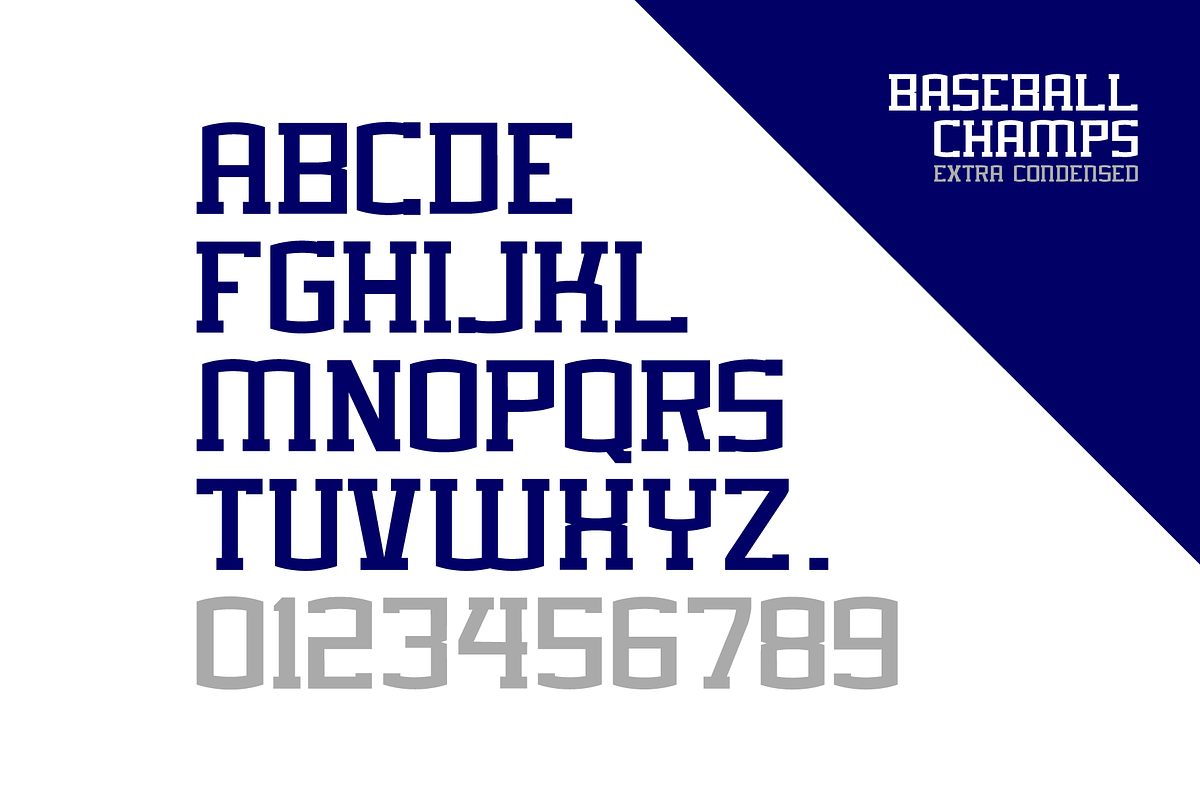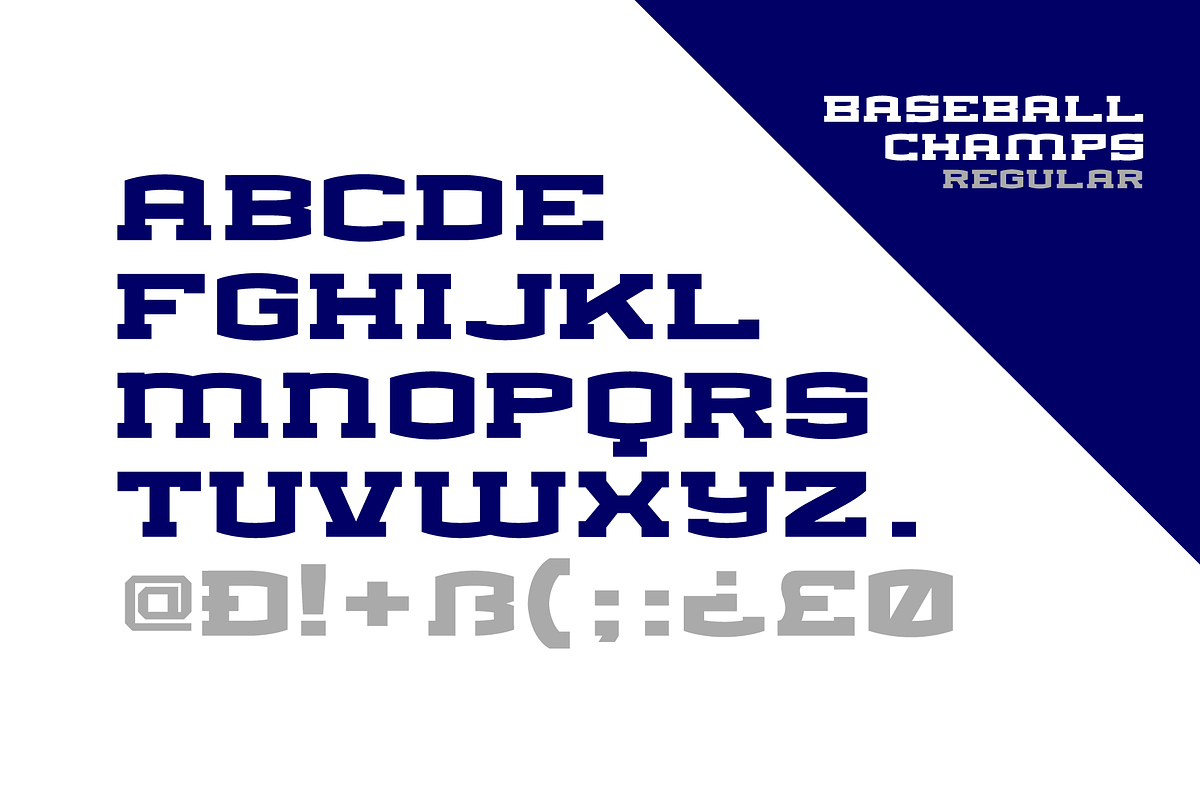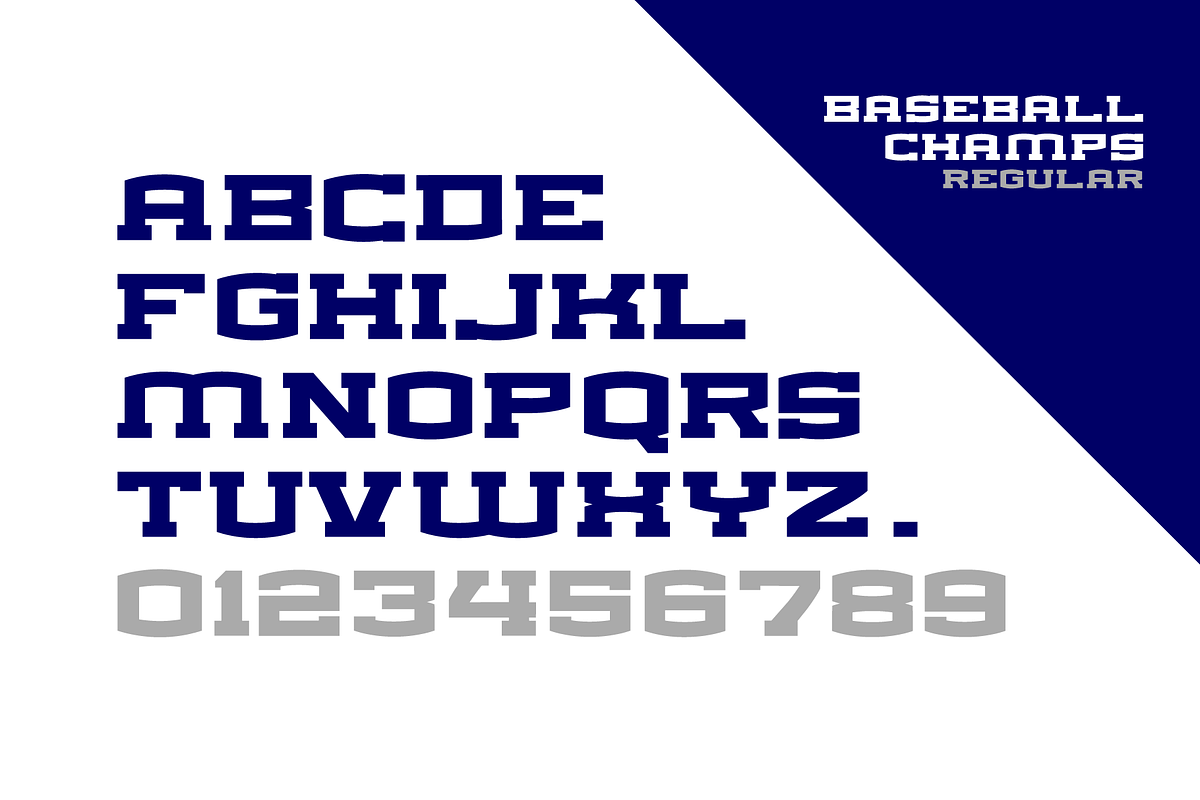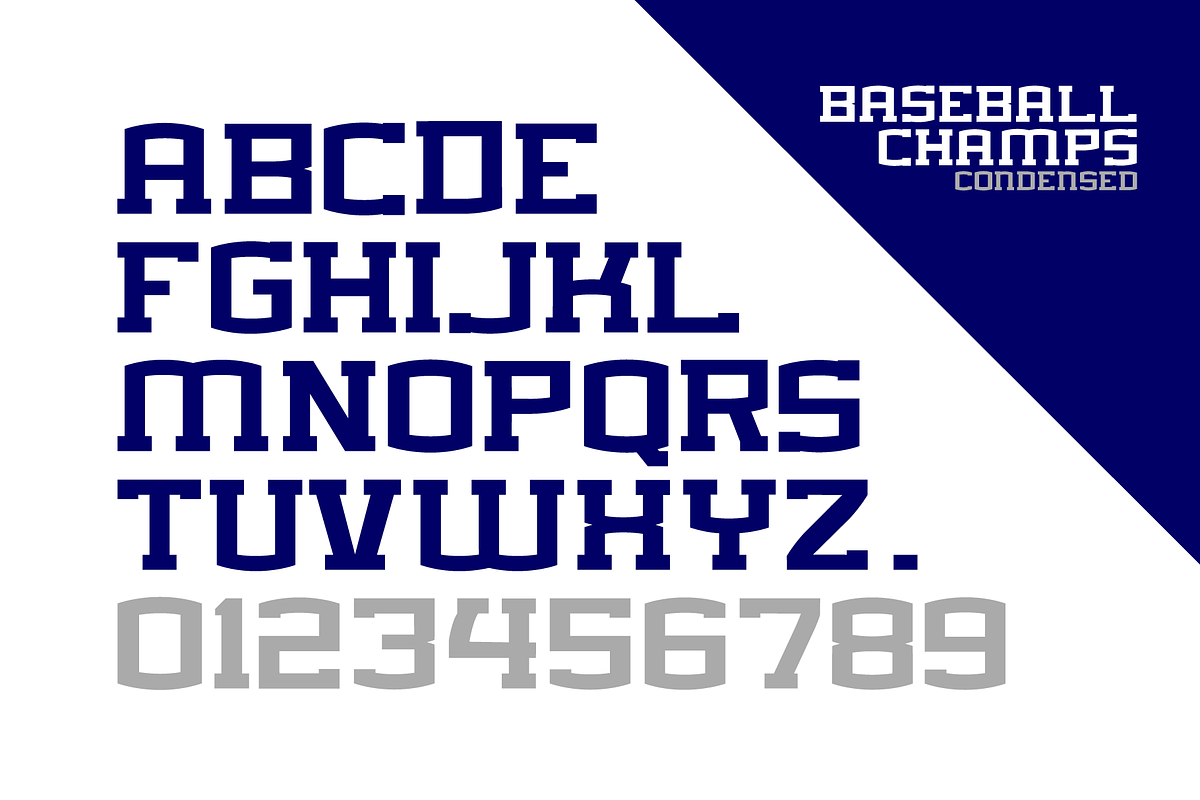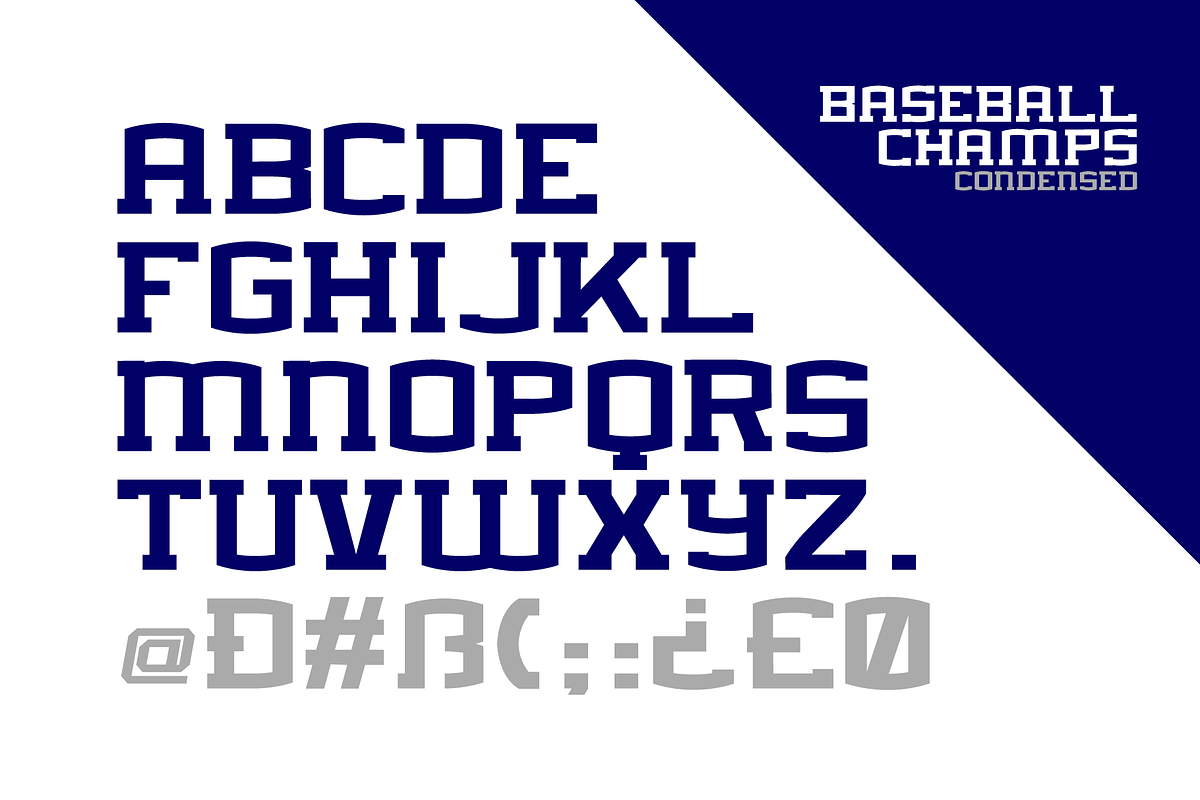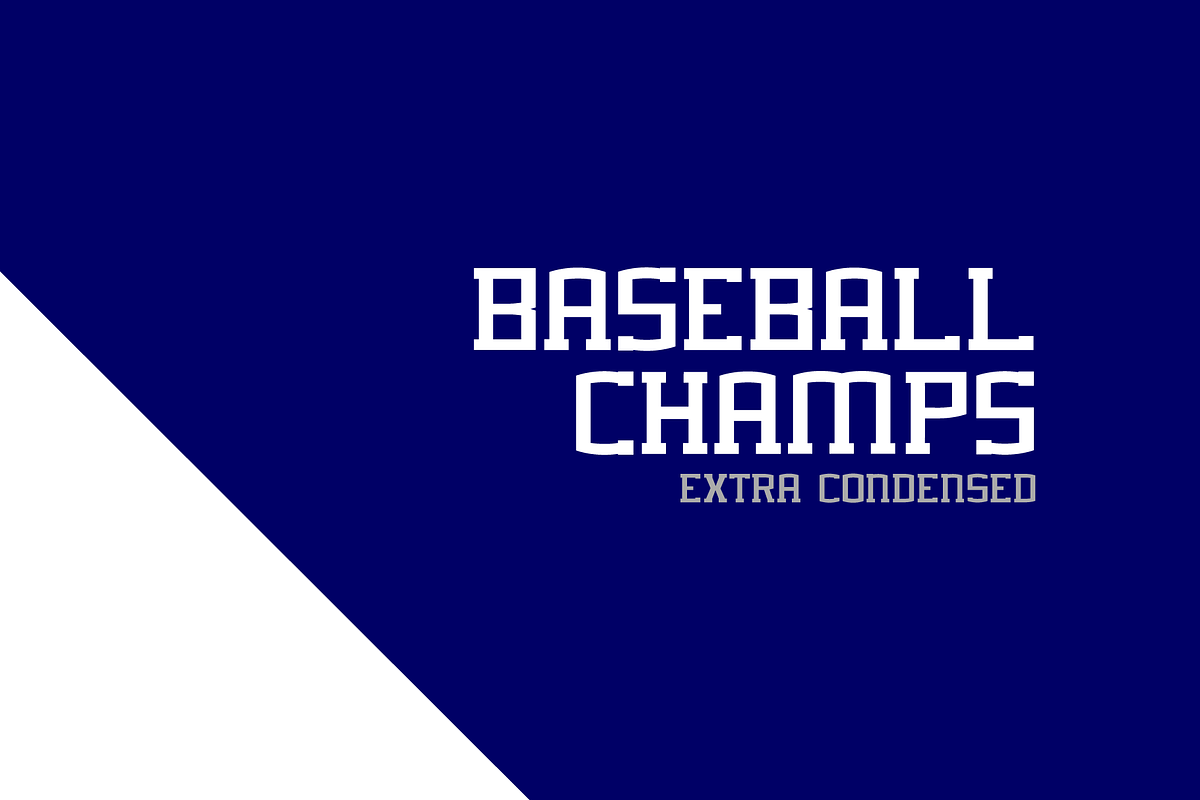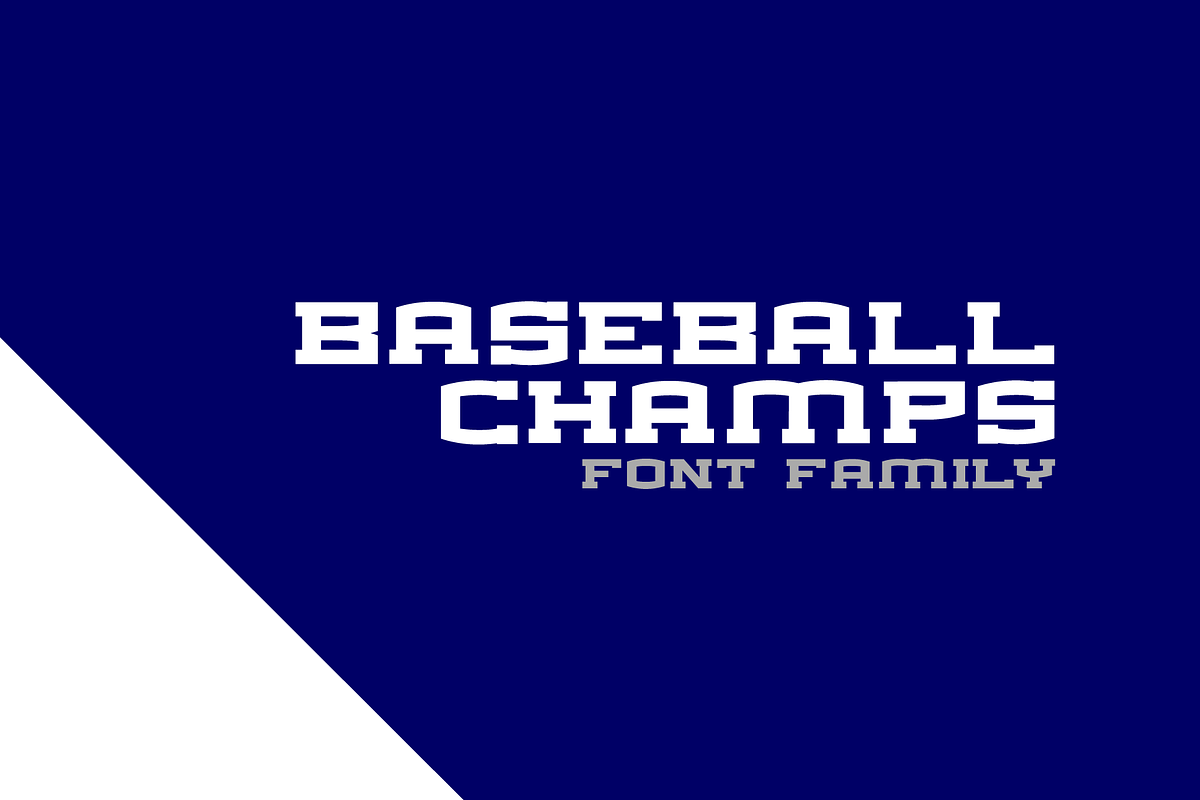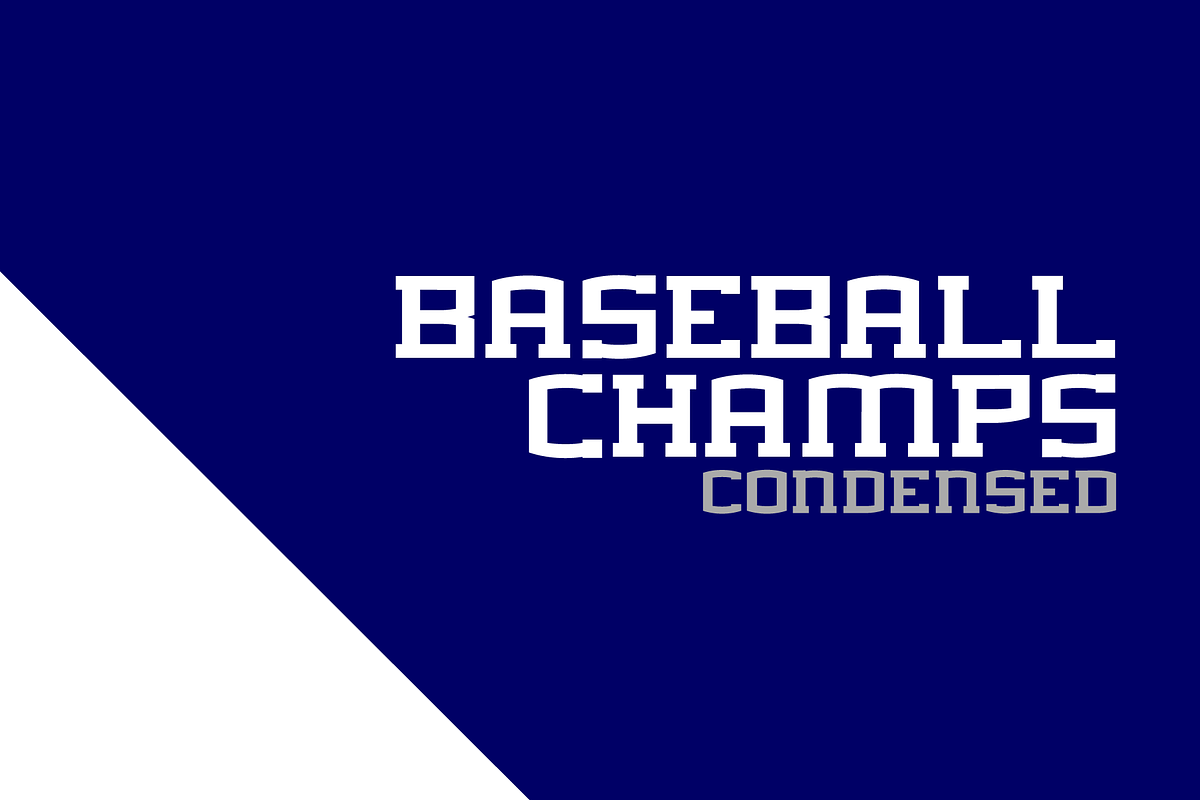
BASEBALL CHAMPS FONT FAMILY
Why BASEBALL CHAMPS FONT FAMILY is worth a look
BASEBALL CHAMPS FONT FAMILY by Alphabet Agency fits naturally into Branding, posters, packaging, typography.